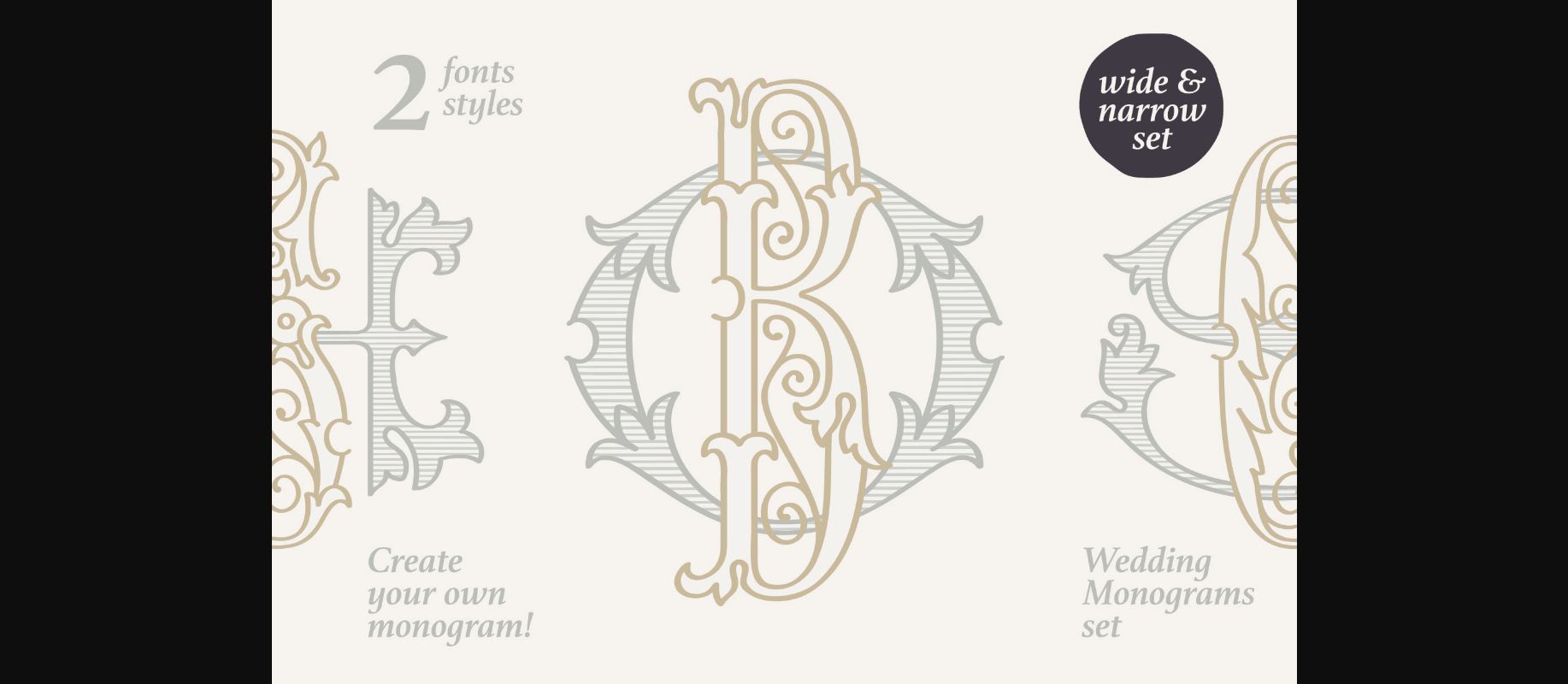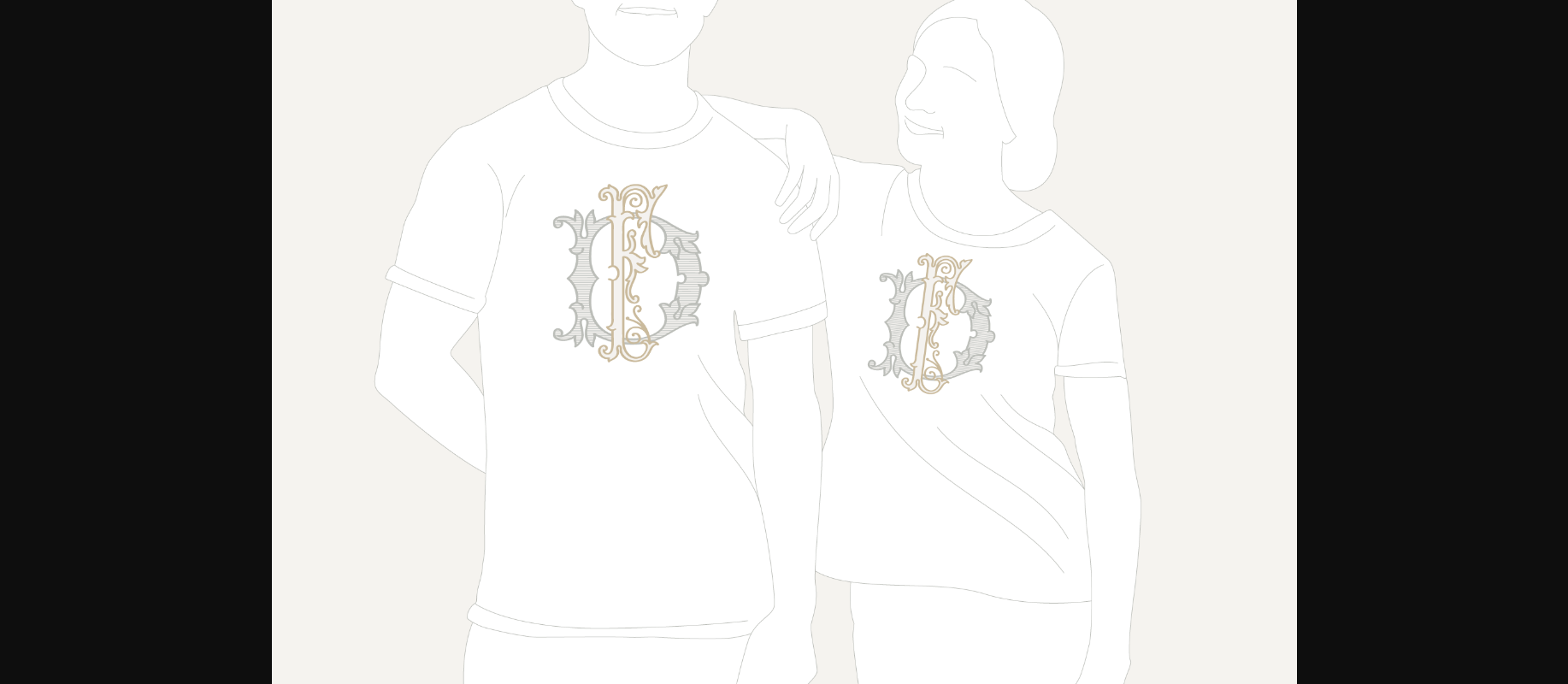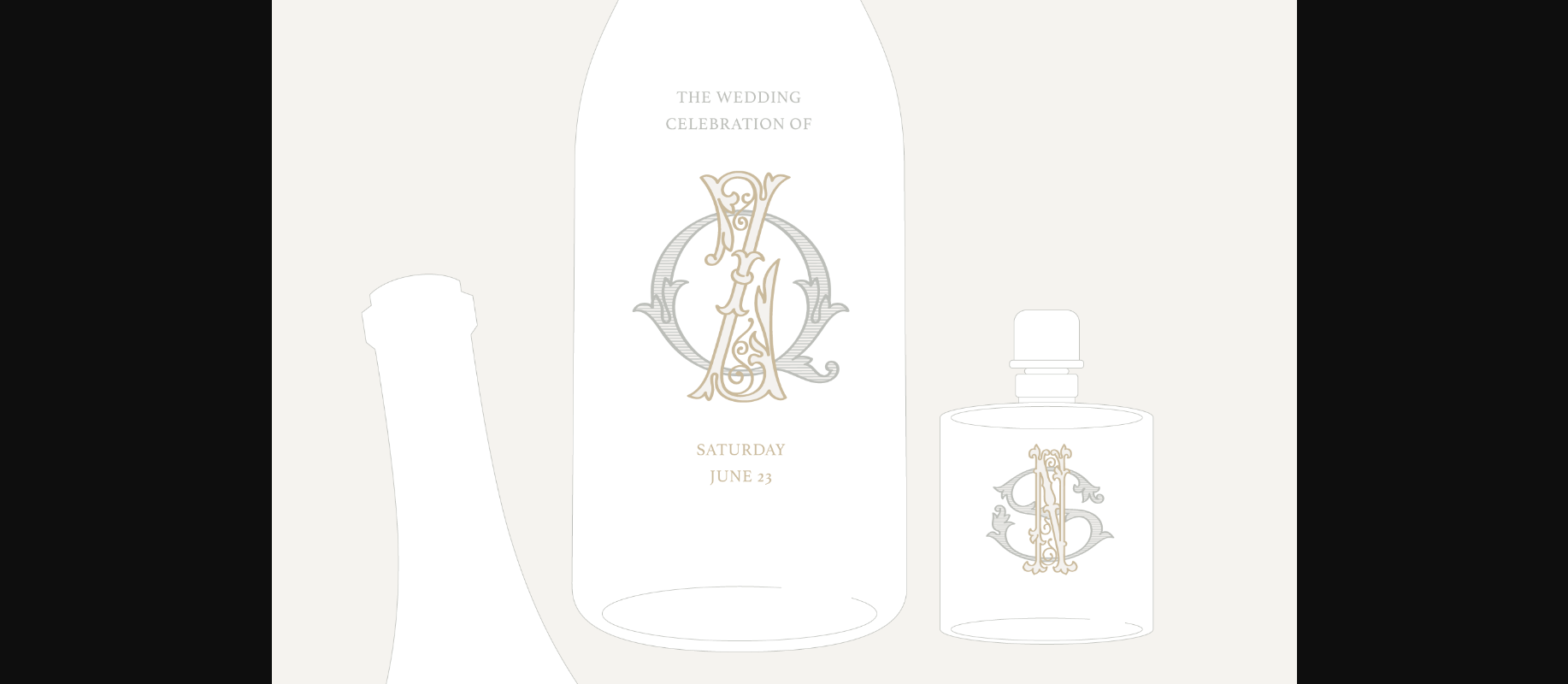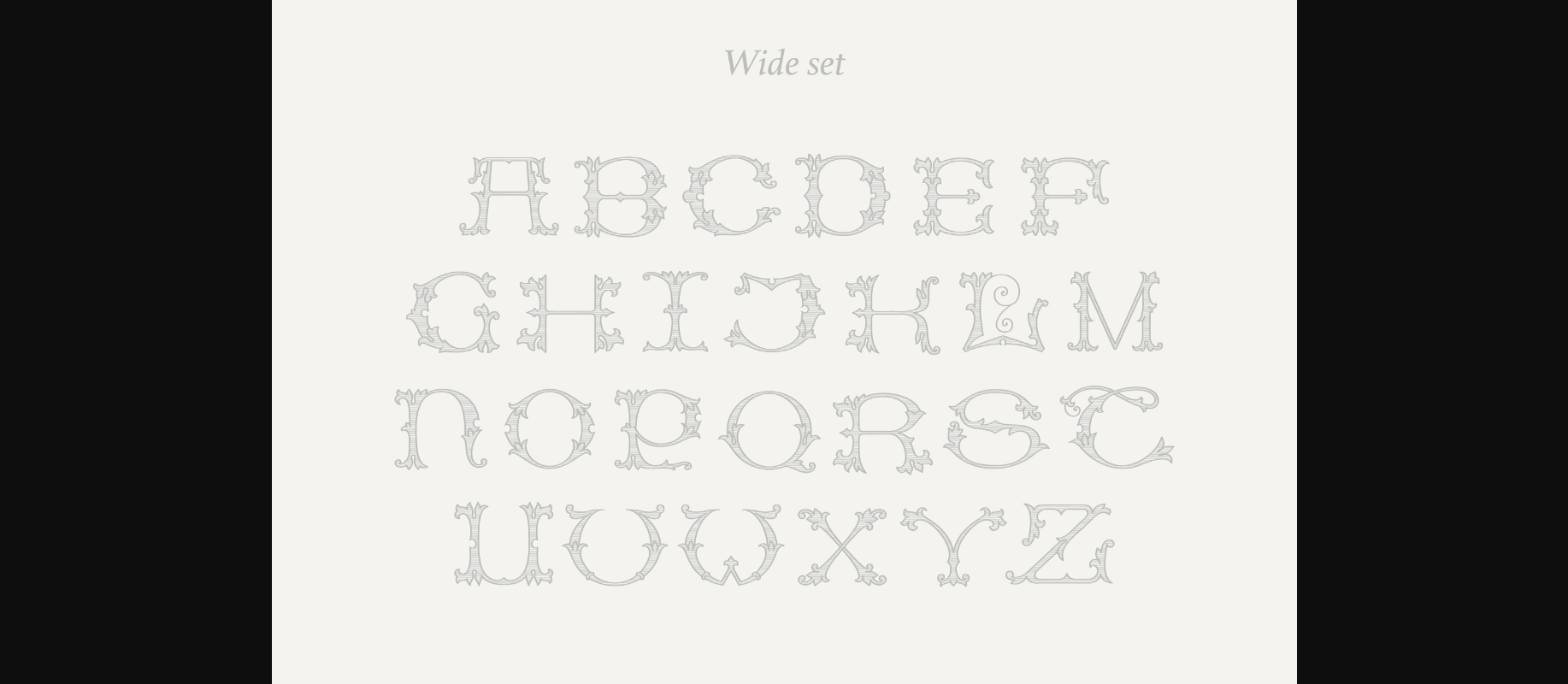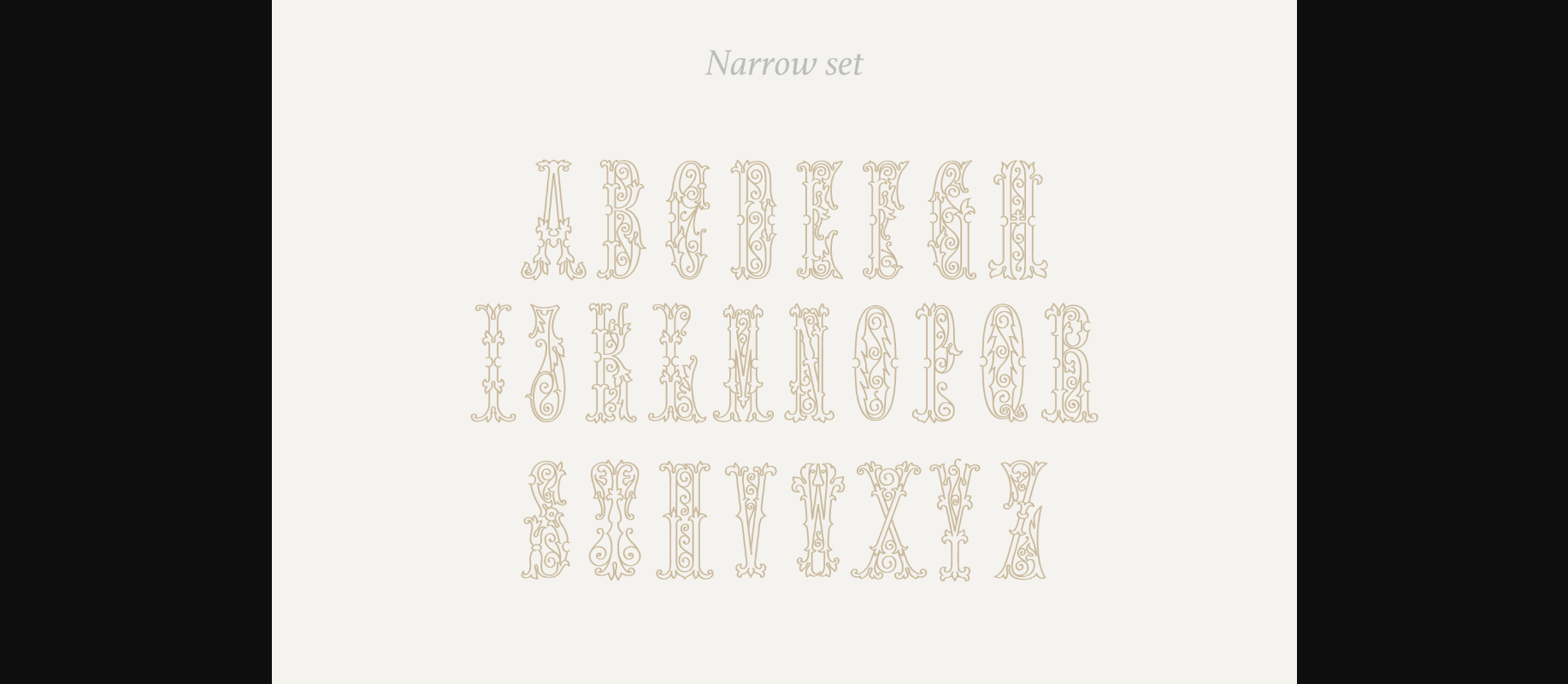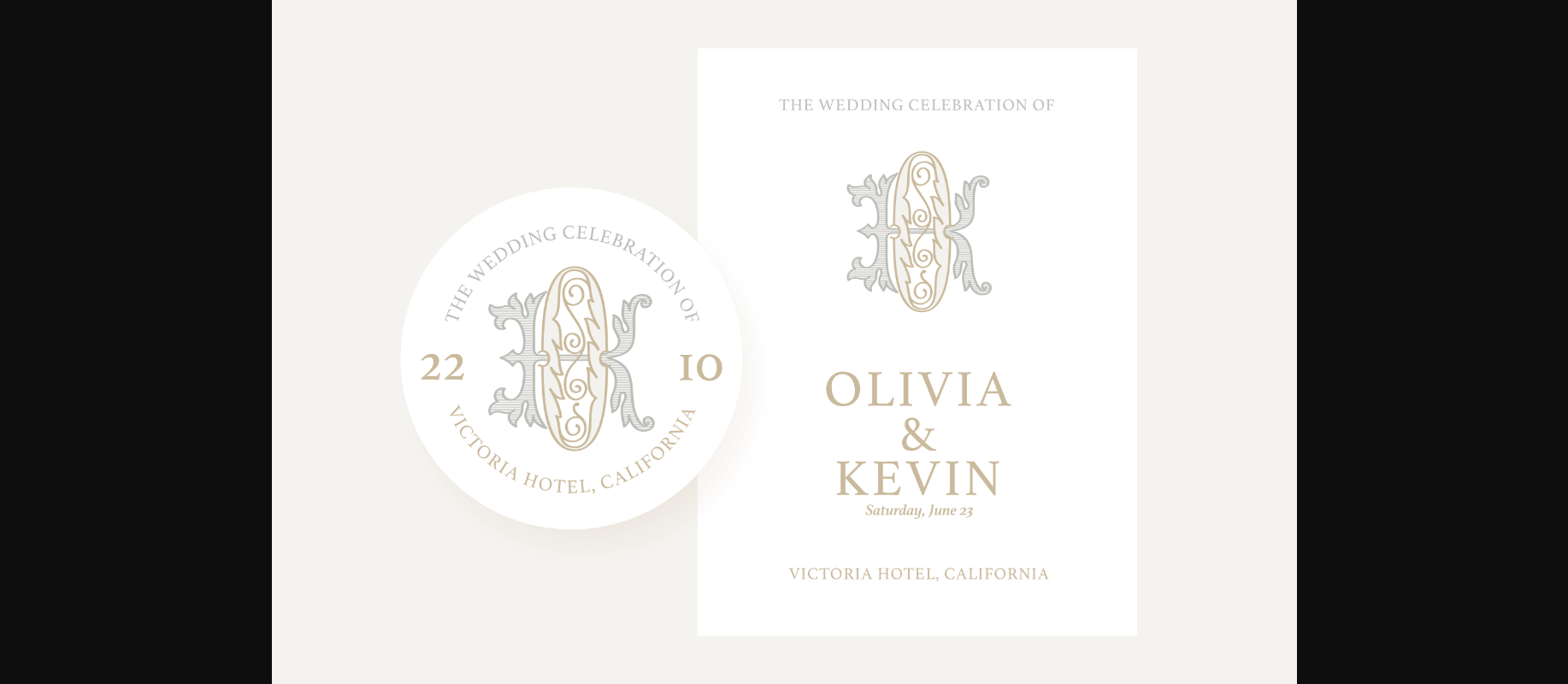
Wedding Monograms Font
About Wedding Monograms Font
Wedding monograms is a font family in an elegant historical style. This family of two character monograms was inspired by “Course of women’s needlework” published in 1887.